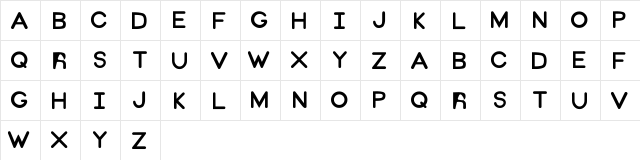
Monty Regular Font Preview
Monty Regular
Design Context for Monty Typeface
Monty offers clean, dependable letterforms without strong stylistic allegiance, making it a practical choice for designers who need flexibility.
Pro Tip: Use Monty in both headline and body roles to test its range before committing to a single application.